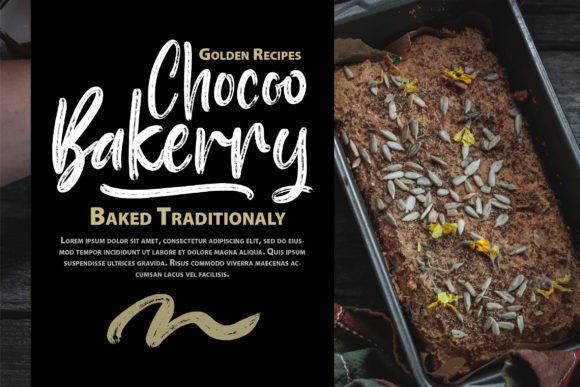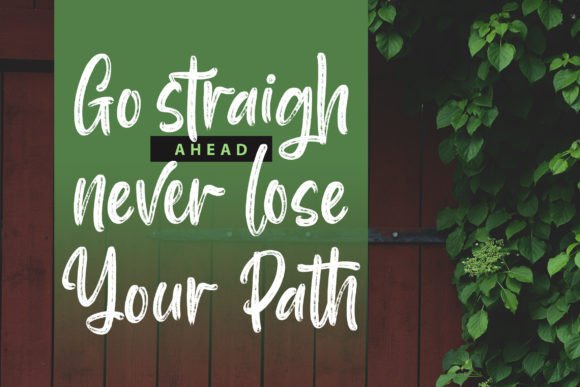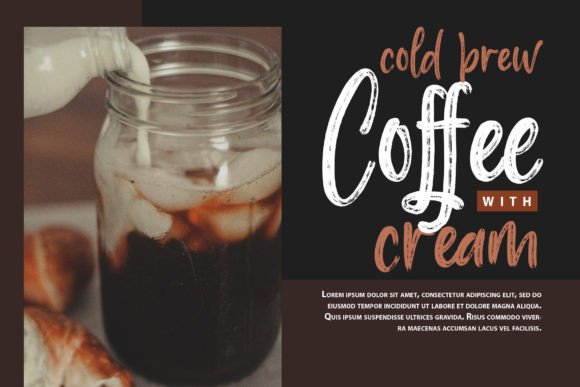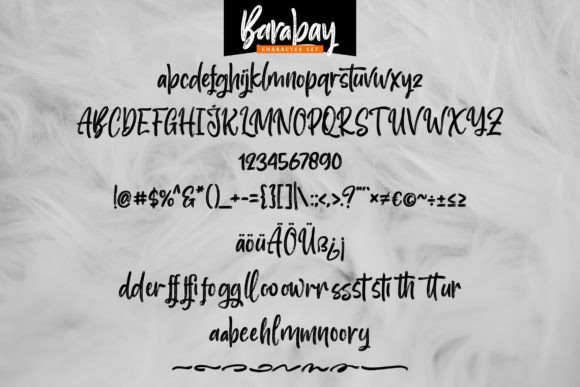
Discover the Ultimate Design Companion: Barabay Font
Are you on the hunt for a font that can elevate your designs and make them stand out from the crowd? Look no further than Barabay Font, a cool and trendy brush script font that’s perfect for creative projects. With its contemporary and fresh style, Barabay is sure to become your go-to font for all your design needs.
What Makes Barabay Font So Special?
Barabay Font is a game-changer for designers and crafters alike. Its unique brush script style gives it a distinctive look that’s both modern and stylish. Whether you’re working on a logo, branding project, or social media graphics, Barabay is the perfect choice. Its versatility and flexibility make it suitable for a wide range of design applications.
Key Features of Barabay Font
- PUA Encoded: Barabay Font is PUA (Private Use Area) encoded, which means you can access all the glyphs and ligatures with ease. This makes it simple to use and incorporate into your designs.
- Contemporary and Fresh: Barabay’s modern style ensures that your designs will look fresh and up-to-date.
- Perfect for Creative Projects: Whether you’re a designer, crafter, or DIY enthusiast, Barabay is the perfect font for your creative projects.
How to Use Barabay Font in Your Designs
- Experiment with Different Sizes: Barabay Font looks great in a variety of sizes, from small and delicate to large and bold.
- Play with Colors: Barabay’s brush script style looks great in a range of colors, from bright and bold to soft and pastel.
- Mix and Match: Don’t be afraid to combine Barabay with other fonts and design elements to create a unique look.
Why Designers and Crafters Love Barabay Font
Barabay Font has quickly become a favorite among designers and crafters. Here are just a few reasons why:
- Unique Style: Barabay’s distinctive brush script style sets it apart from other fonts.
- Versatile: Barabay is suitable for a wide range of design applications, from logos and branding to social media graphics and more.
Get Ready to Elevate Your Designs with Barabay Font
Ready to take your designs to the next level? With Barabay Font, you can create stunning and professional-looking designs that are sure to impress. Whether you’re a seasoned designer or just starting out, Barabay is the perfect choice for any creative project.
In conclusion, Barabay Font is a must-have for any designer or crafter looking to elevate their designs. With its unique brush script style, contemporary and fresh look, and ease of use, Barabay is the perfect font for creative projects. So why wait? Download Barabay Font today and start creating stunning designs that are sure to stand out from the crowd!